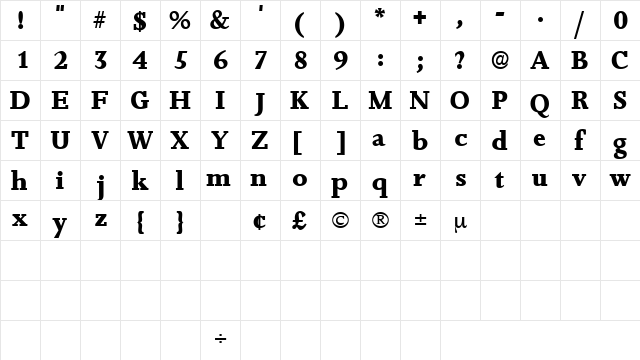
JuxtaDisplaySSK Regular
Design Context for JuxtaDisplaySSK Typeface
JuxtaDisplaySSK is built around its visual character rather than neutral utility — its distinctive forms are designed to make an impression at display sizes.
Font Pairing: Pair with a clean neutral sans-serif for body copy to let JuxtaDisplaySSK's character lead without overwhelming the composition.
Pro Tip: Use JuxtaDisplaySSK exclusively at display sizes — it was designed to be seen, not read at length. Let a neutral companion handle body copy.